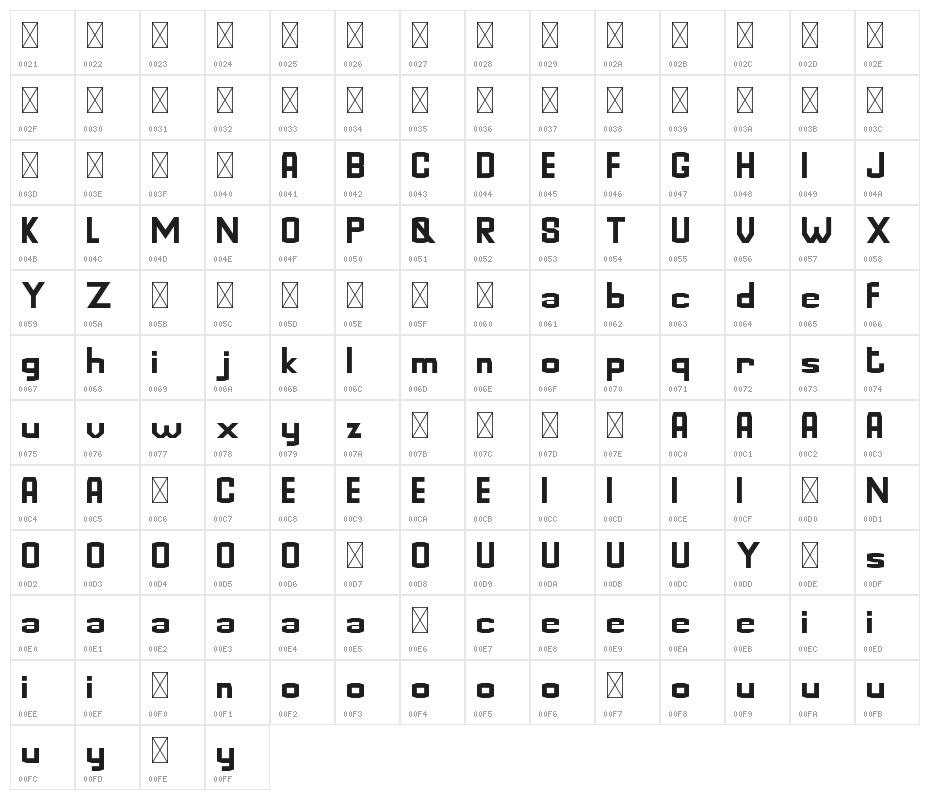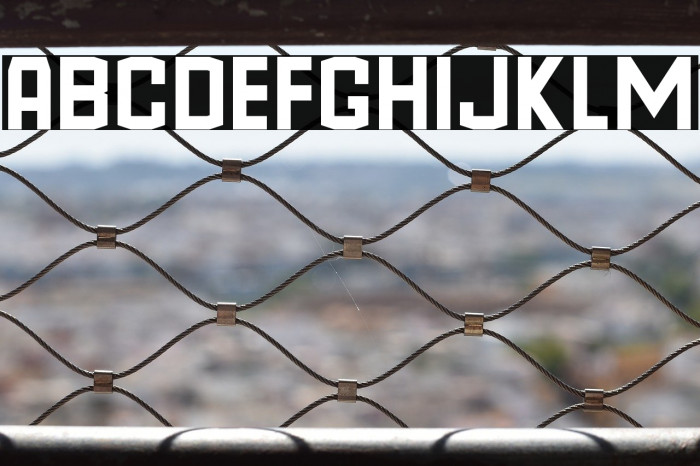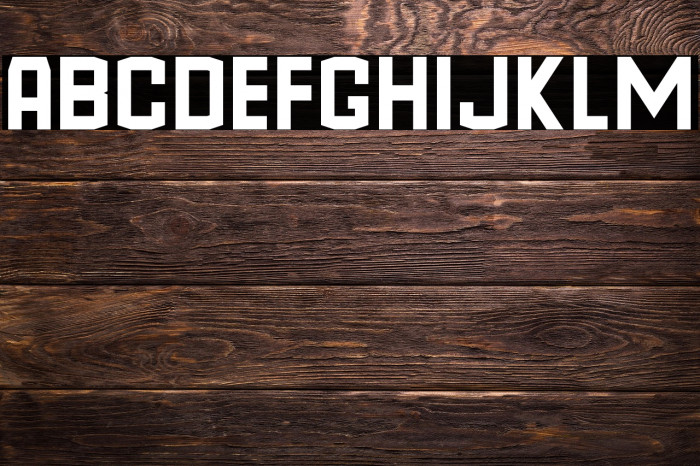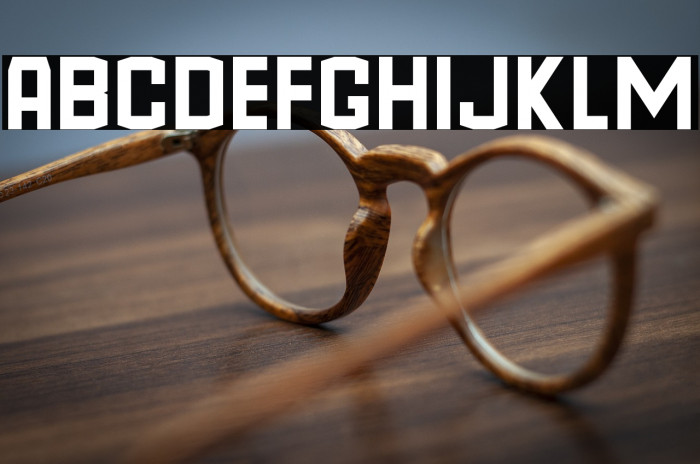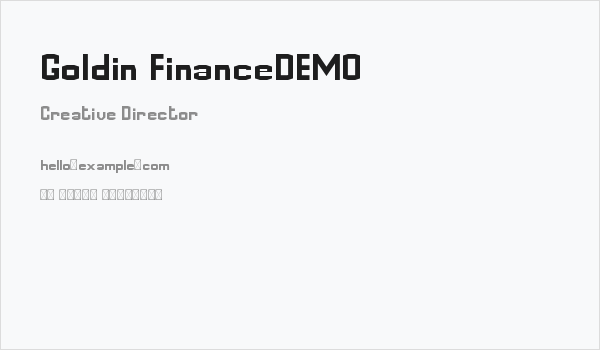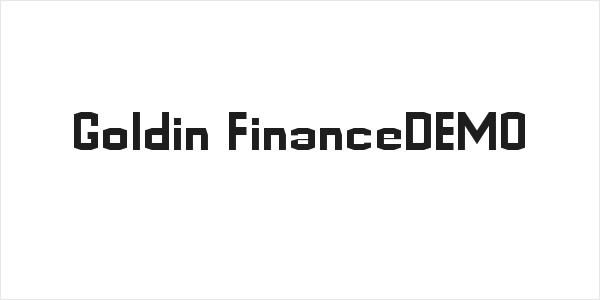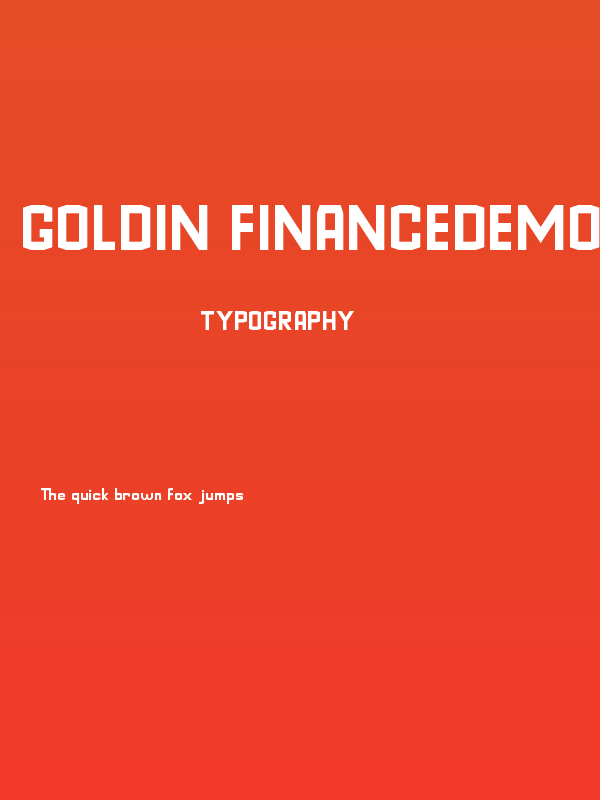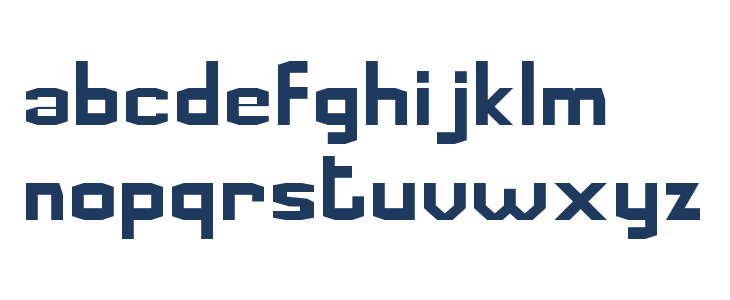
Goldin FinanceDEMO Font
Goldin FinanceDEMO Description
This font features a bold, geometric design with a modern and edgy appearance. The uppercase letters are characterized by sharp angles and a blocky structure, giving them a strong and impactful presence. The lowercase letters maintain a similar geometric style, with consistent stroke widths and angular forms. The font lacks traditional curves, opting instead for straight lines and sharp corners, which contribute to its contemporary and industrial feel. The absence of special characters and numerals suggests a focus on alphabetic text, making it ideal for headlines and titles where a bold statement is desired.